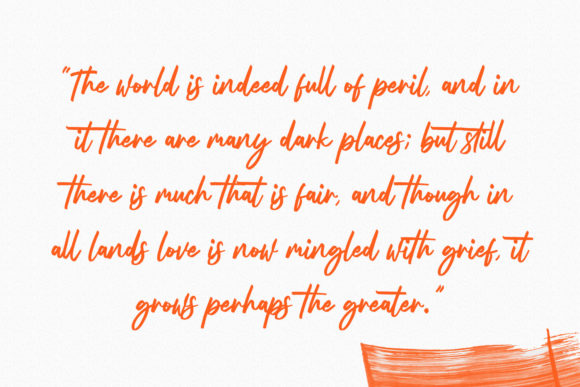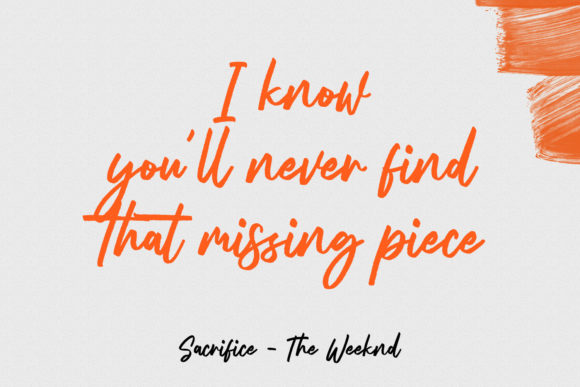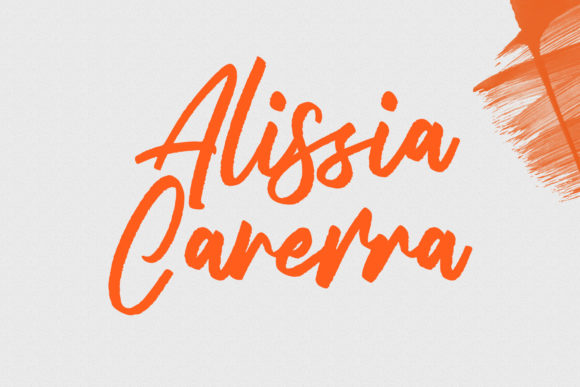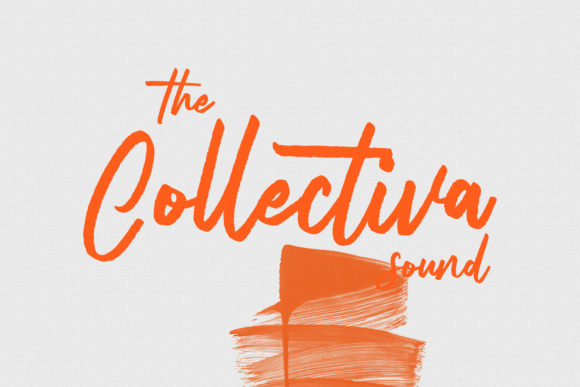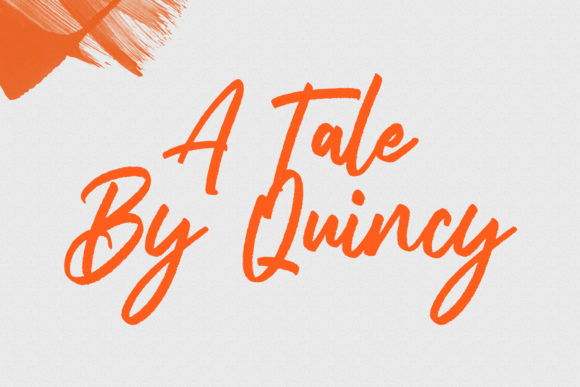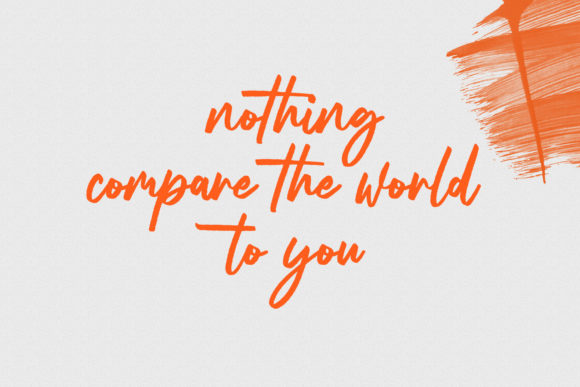
The Perfect Script: Elevate Your Designs with Argenthus Script Font
You’ve spent hours brainstorming, sketching, and perfecting your design, and finally, you’re about to bring it to life. But what’s the missing piece that will take your project from good to great? The perfect font, of course! For those who crave a touch of elegance and sophistication, the Argenthus Script Font is the answer to your prayers.
This delicate and fashionable script font is designed to make a statement, whether you’re creating a logo, designing a t-shirt, or developing a creative product. Its versatility knows no bounds, and it will shine in a variety of contexts. As a designer, you’ll appreciate the value of Argenthus Script Font in adding a unique touch to your work, setting you apart from the crowd and making your designs truly unforgettable.
- Unique Characteristics: Elegant, cursive script with a touch of elegance and sophistication, ideal for invitations, wedding stationery, and other high-end designs
Designer Review: Argenthus Script Font
Overall, I think the Argenthus Script Font is a solid choice for those looking for a elegant, handwritten font. ✨ One of the things that stands out is its beautiful connection to calligraphy, with smooth lines and fluid curves that evoke a sense of sophistication. The font also has a good balance between legibility and style, making it suitable for a wide range of applications.
- ✨ The font’s versatility: It can be used for both body text and headings, making it a great choice for designers who want a single font to cover multiple design elements.
- ✨ The font’s expressiveness: It has a lot of character and can add a touch of personality to any design, making it perfect for projects that require a bit of whimsy or flair.
However, there are a few limitations to keep in mind. ⚠️ The font may not be the best choice for very long blocks of text, as the connections between letters can start to look a bit cluttered. Additionally, the font may require some tweaking to get the spacing and alignment just right, which can be time-consuming.
Overall, I would give the Argenthus Script Font 4 out of 5 stars. While it has some limitations, it’s a beautiful and versatile font that can add a lot of character to any design. With a bit of patience and practice, it can be a great addition to any designer’s toolkit.
For best results, use Argenthus Script Font in headings and titles to add a touch of elegance and sophistication. It’s ideal for wedding invitations, branding materials, and any design that requires a touch of whimsy. Experiment with different font sizes and colors to create a unique look.